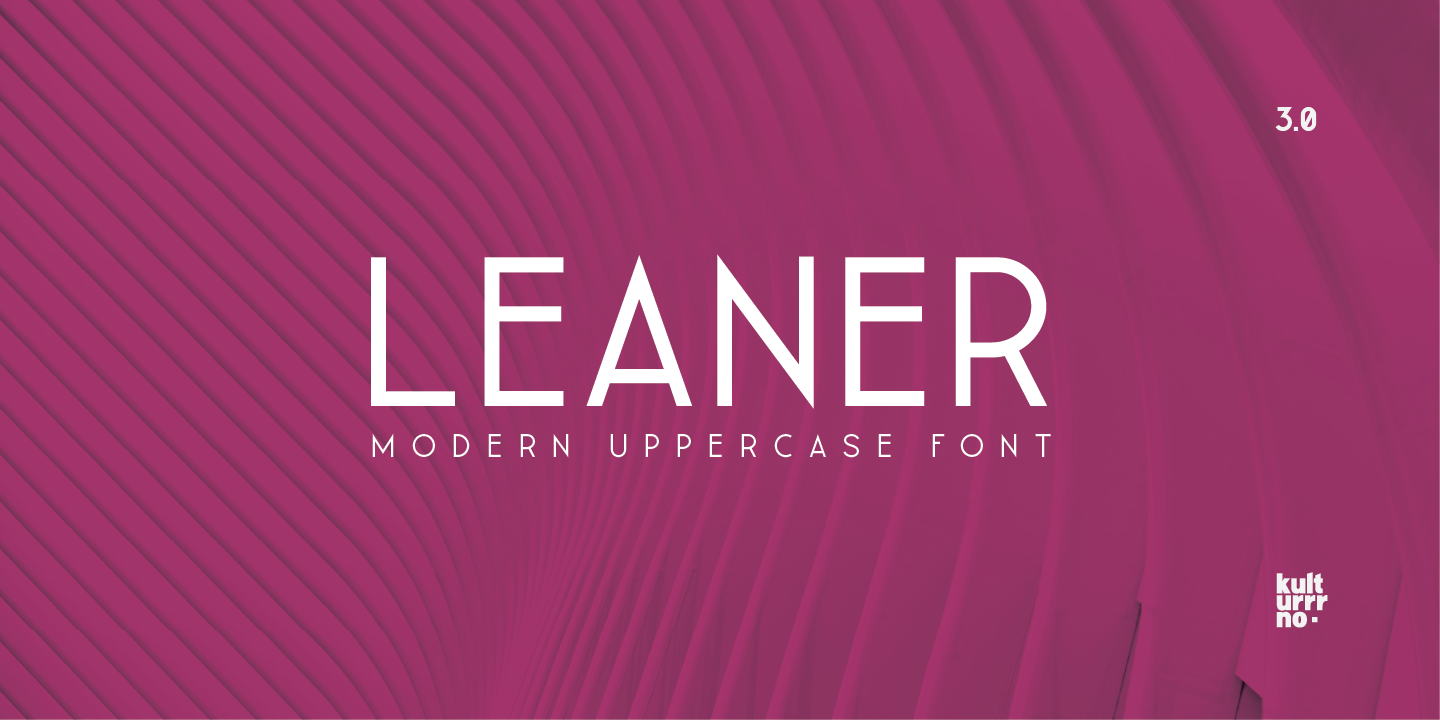
Leaner Font is perfect for minimalist branding, fashion magazines, architectural presentations, luxury packaging, modern websites, editorial designs, portfolio layouts, corporate identity, sleek advertising campaigns, and any projects that require a refined, streamlined appearance.
What makes Leaner Font exciting is its ultra-slim profile and sophisticated minimalist design that epitomizes contemporary elegance. This refined typeface features precisely crafted letterforms with reduced stroke width, creating an airy and spacious feel that commands attention through its restraint. The font's clean geometry and optimized proportions make it perfect for brands seeking to convey luxury, precision, and modern sophistication in their visual communications.
Leaner Font family includes comprehensive weight variations ranging from extra light to medium, featuring thin, light, regular, and medium versions. The font family also offers italic counterparts for each weight, along with condensed and extended variants that provide maximum flexibility for different layout requirements and spatial constraints in modern design applications.